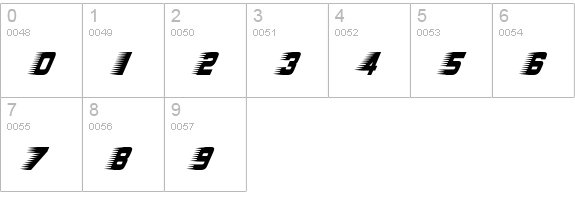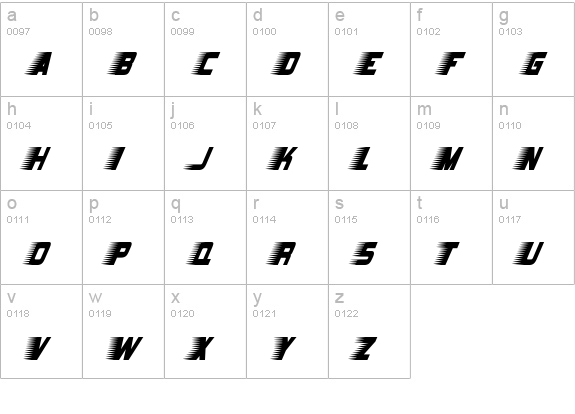
Barbatrick Font Details
Introducing Barbatrick font - a stunning display typeface that exudes elegance and sophistication. With its intricate details and unique design, Barbatrick is sure to make your projects stand out. This font is perfect for branding, logo design, packaging, and more. The best part? It's completely free to download at FontsMarket.com. Embrace the beauty of Barbatrick font and let your creativity shine with this exquisite typeface.